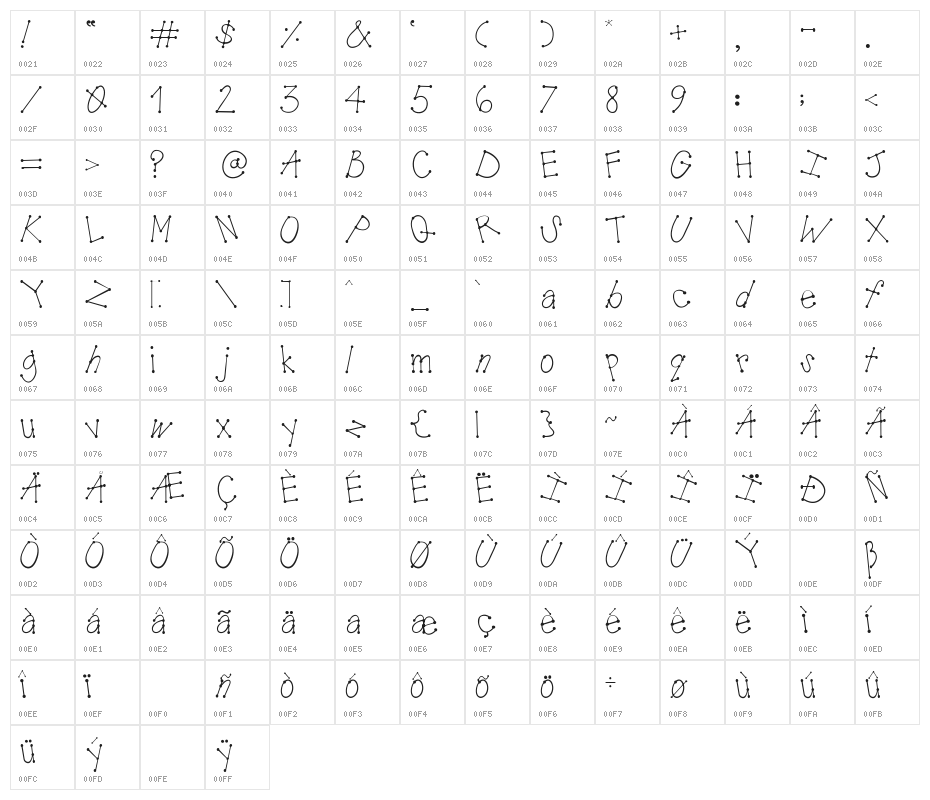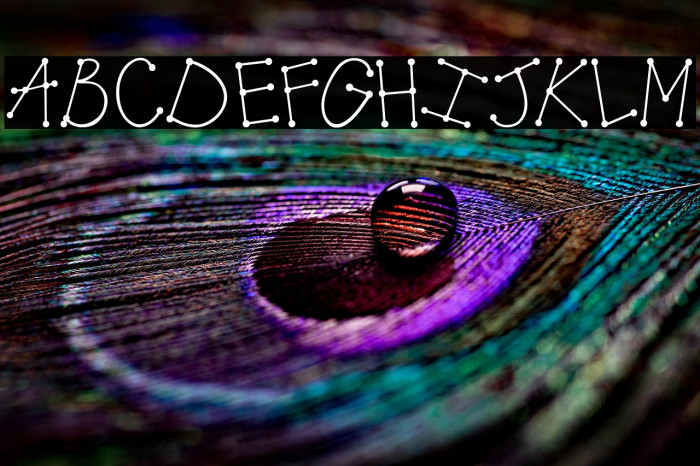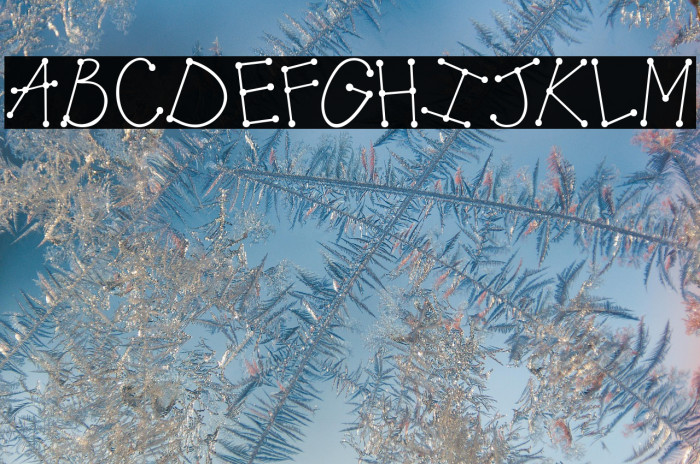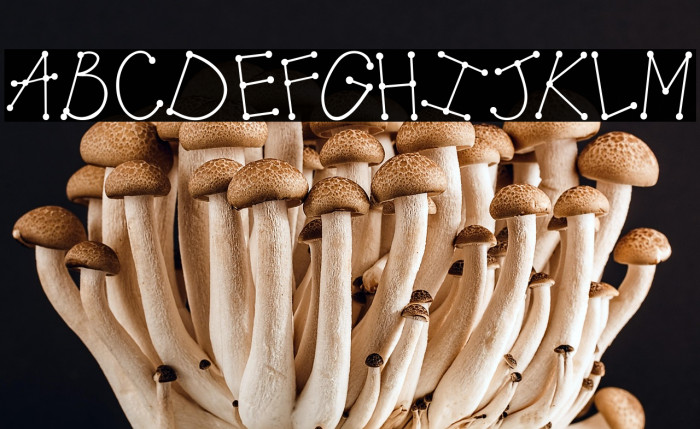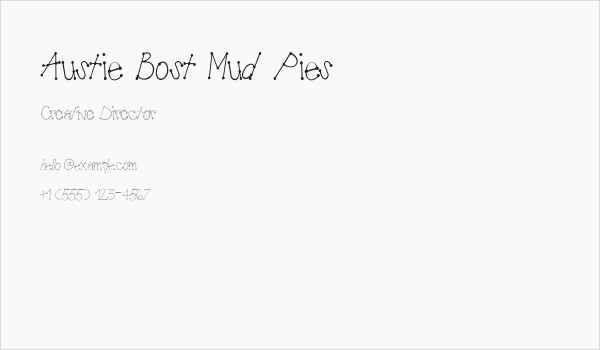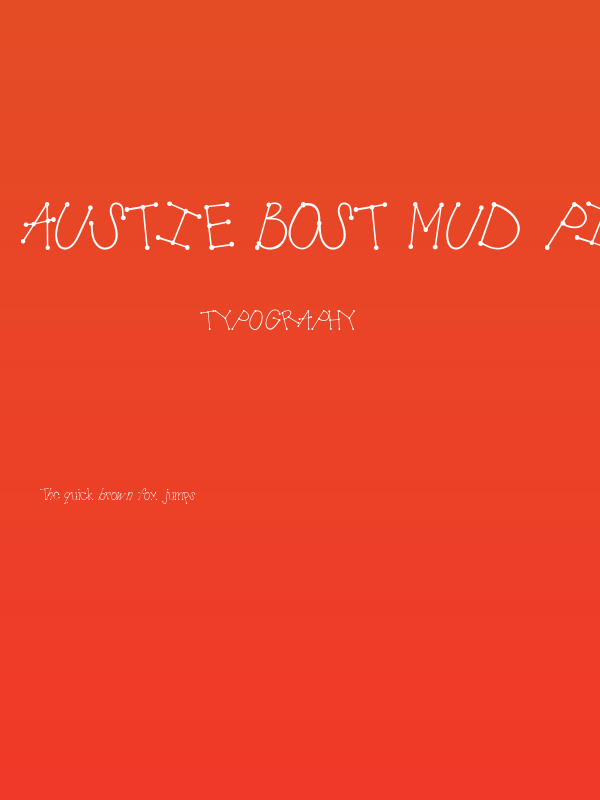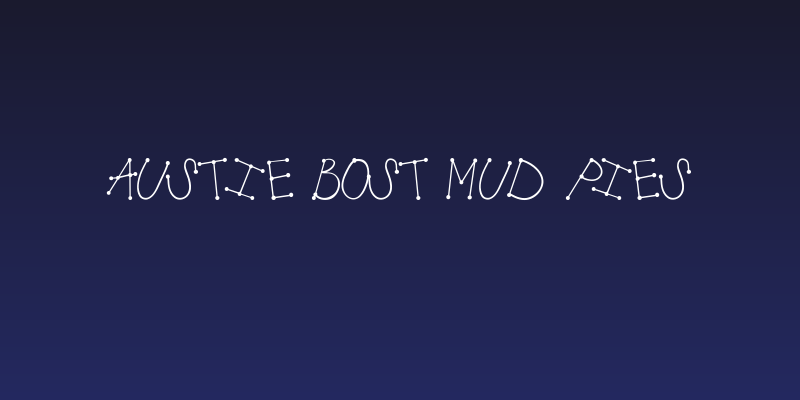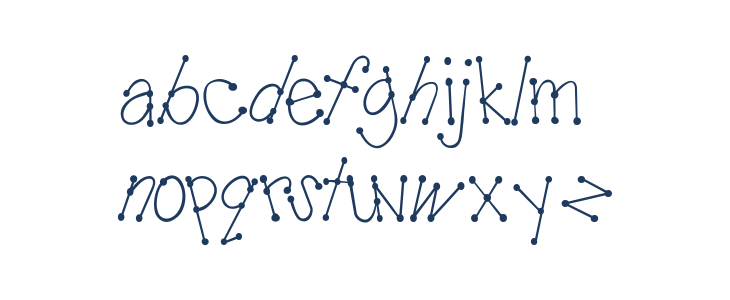
Austie Bost Mud Pies Font
Austie Bost Mud Pies Description
This playful and whimsical font features a unique design where each character is composed of dots connected by lines, resembling a connect-the-dots puzzle. The letters have a hand-drawn, casual appearance, with varying line thickness that adds a dynamic and lively feel. The uppercase and lowercase letters maintain a consistent style, with rounded edges and a slightly irregular form that enhances the font's charm. Numbers and special characters follow the same dotted theme, ensuring a cohesive look across all elements. This font is perfect for projects that require a fun and informal touch, such as children's books, playful branding, or creative invitations.
| Overall Style | Whimsical, Playful |
| Proposed Projects | Ideal for children's books, playful branding, creative invitations, and informal designs. |